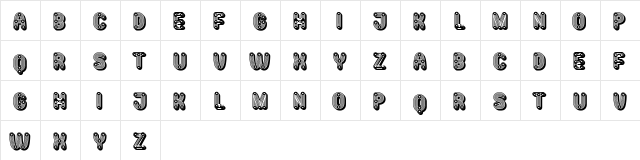
Mangalica Regular
| Designer | Vladimir Nikollic |
Design Context for Mangalica Typeface
Mangalica is a composed and adaptable typeface that performs quietly and consistently across a wide range of design contexts.